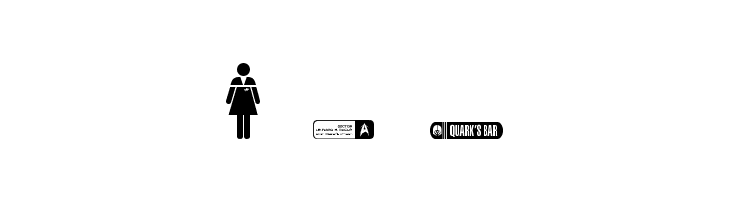
Decorative font focused on Euro symbol variations.
A symbol font of road signs and traffic-related pictograms.
A utilitarian symbol set based on German traffic and road signage.
A decorative font featuring intricate Aztec-inspired glyphs and symbols.
A geometric pictogram icon set for Olympic sports and symbols.
A decorative font featuring zodiac symbols in circular designs.
A decorative font featuring ornate astrological symbols within framed squares.
A set of bold, easily recognizable transportation and directional symbols.
A diverse icon set featuring global cultural and symbolic motifs.
Ornate floral and decorative vignette symbols.
A decorative set of desert-themed symbols with intricate, bold designs.
A whimsical and artistic collection of pictographic symbols with unique, playful designs.
A decorative set of intricate and artistic symbols with a vintage, mystical style.
A decorative font inspired by ancient symbols and runes, featuring bold, hand-drawn characters.
Illustrative font with each character depicted as a unique monument, symbol, or figure.
A decorative dingbat set featuring traditional Asian motifs and symbols.
A decorative set of feminine-themed icons and symbols.